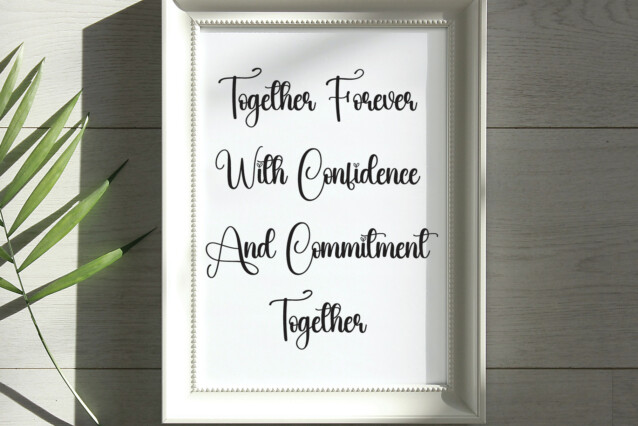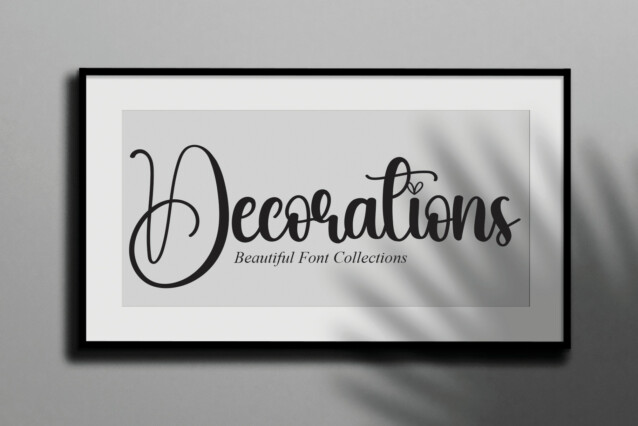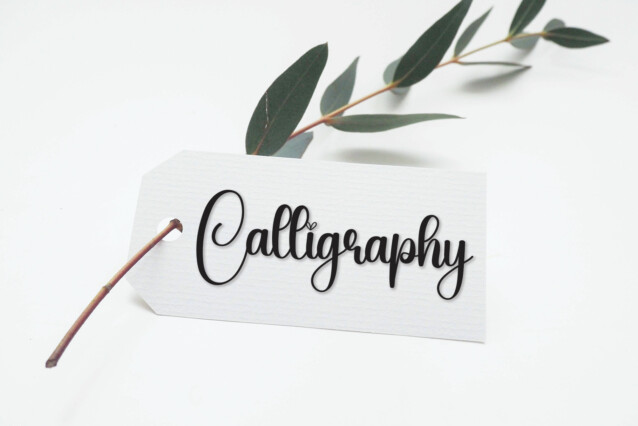
Cruise Script Font
Cruise Script Font is a lovely handwritten script font. With its beautiful rhythm, this font will help you create gorgeous and classy compositions. Use it for branding projects, invitations, web graphics, cards, and many more!